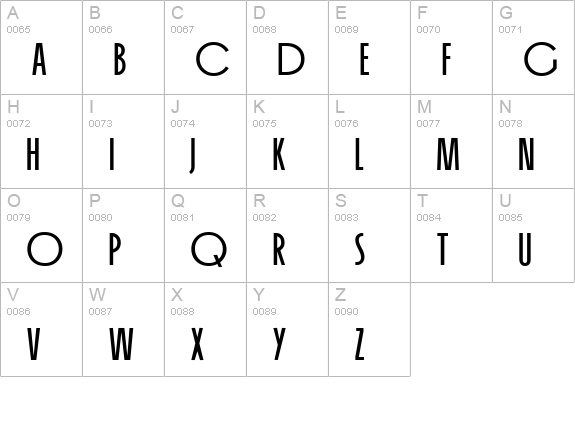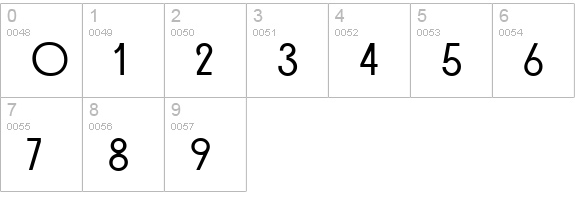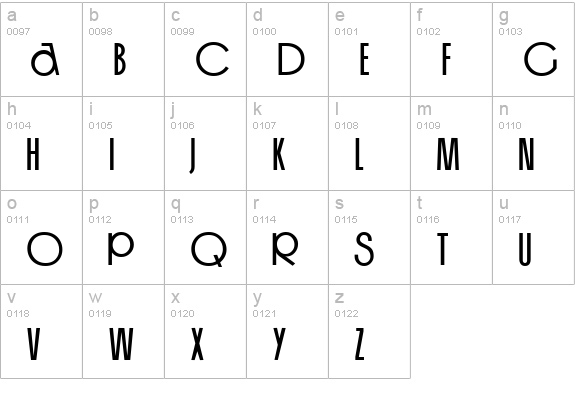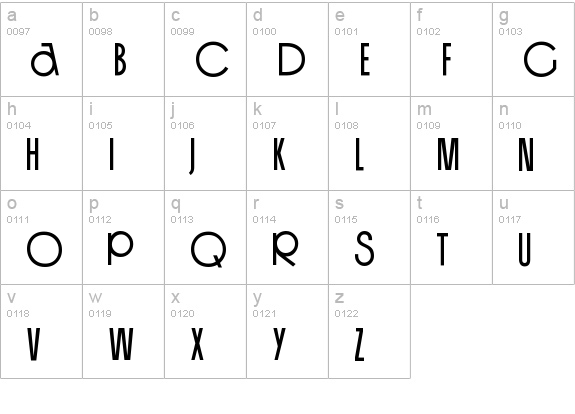
Organda Bold Font Details
Organda Bold is a strong, high-contrast variant in the Organda typeface family \xE2\x80\x94 well suited to headlines, attention-grabbing titles, and strong calls-to-action.